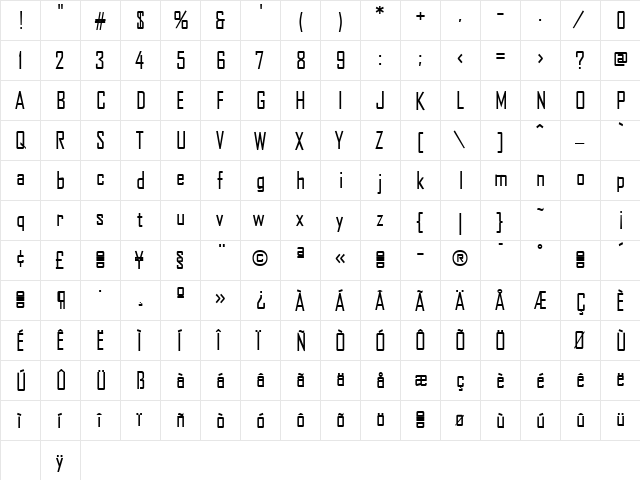
Agency Regular
Design Context for Agency Typeface
Agency offers clean, dependable letterforms without strong stylistic allegiance, making it a practical choice for designers who need flexibility.